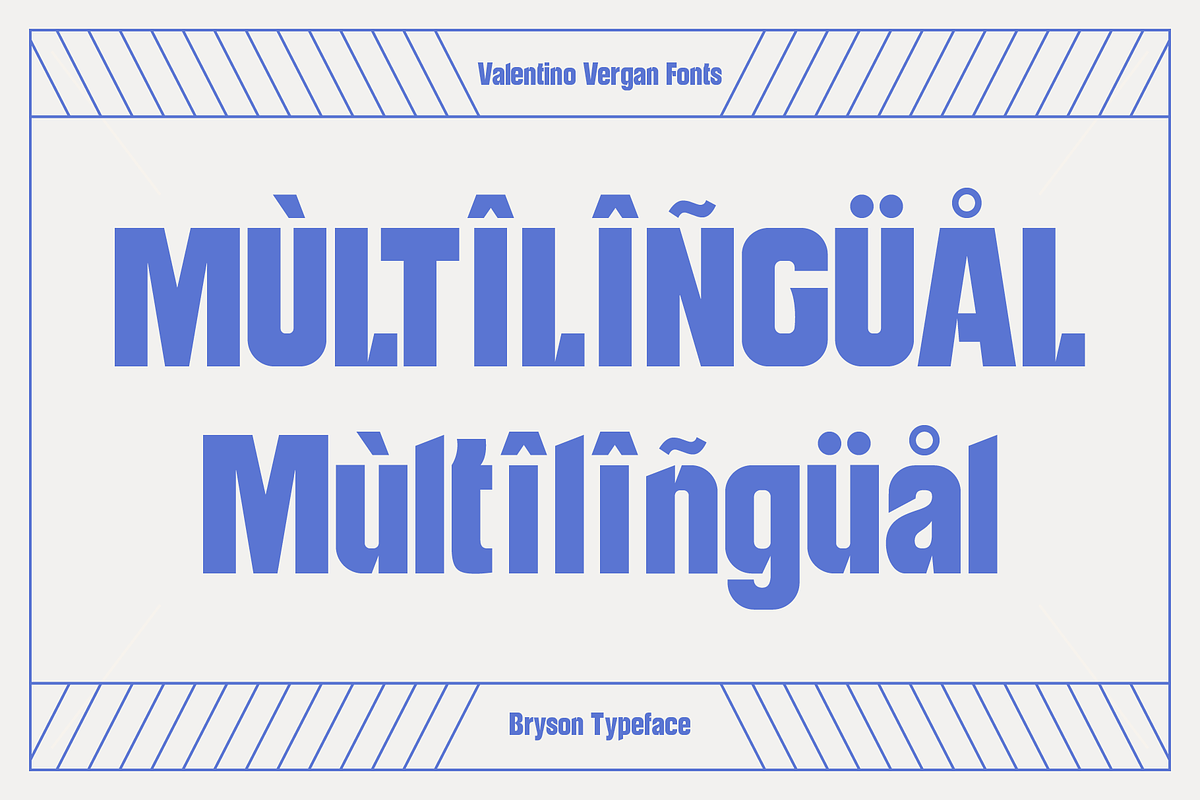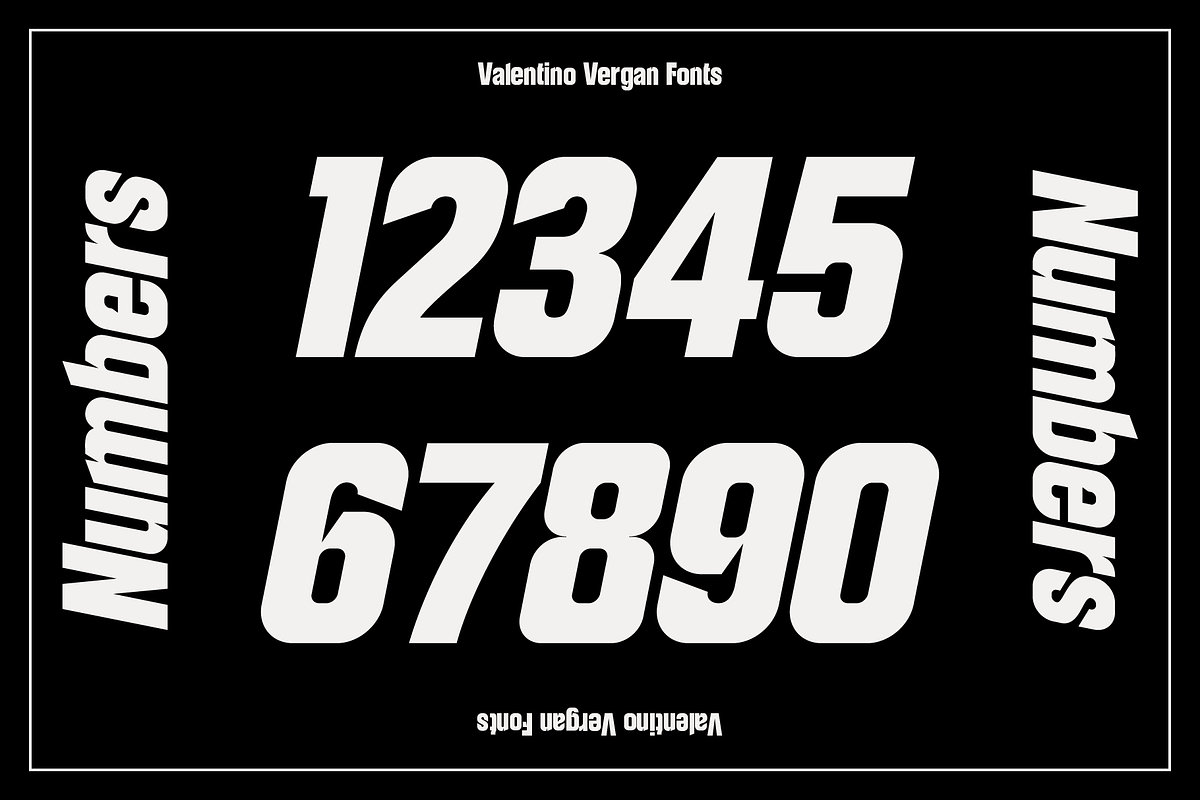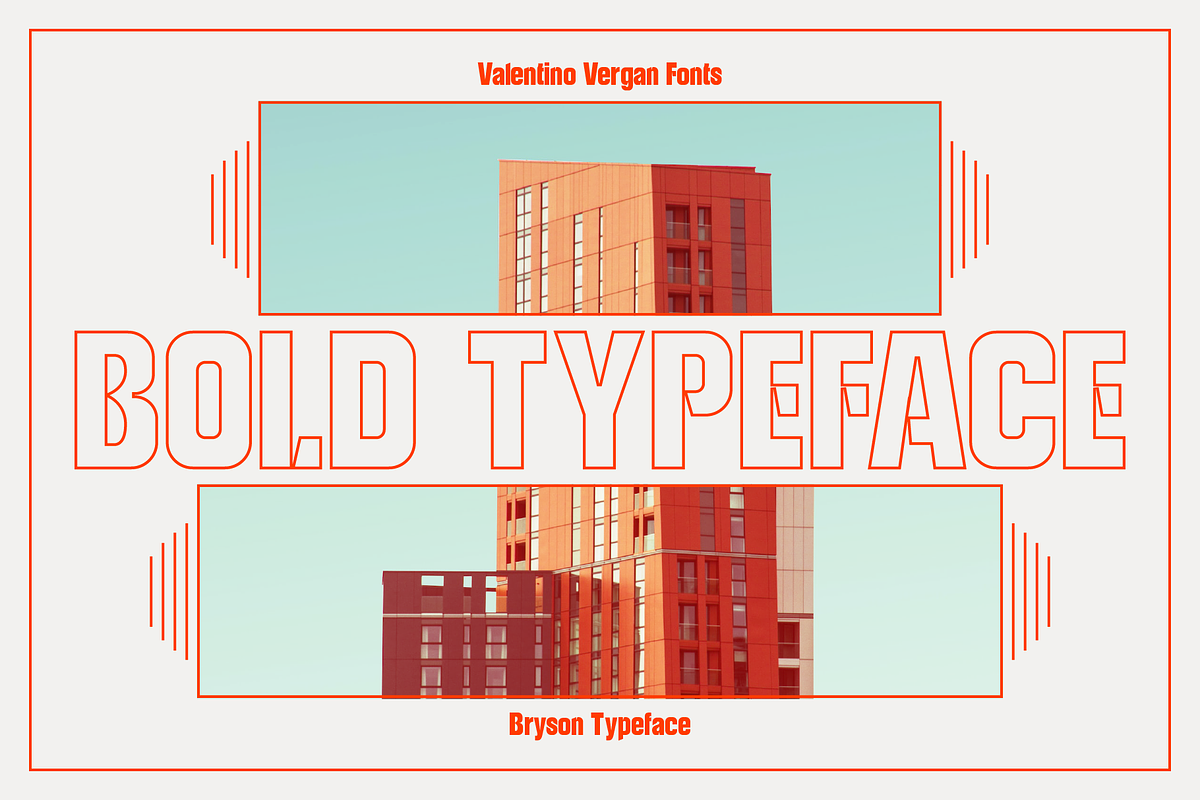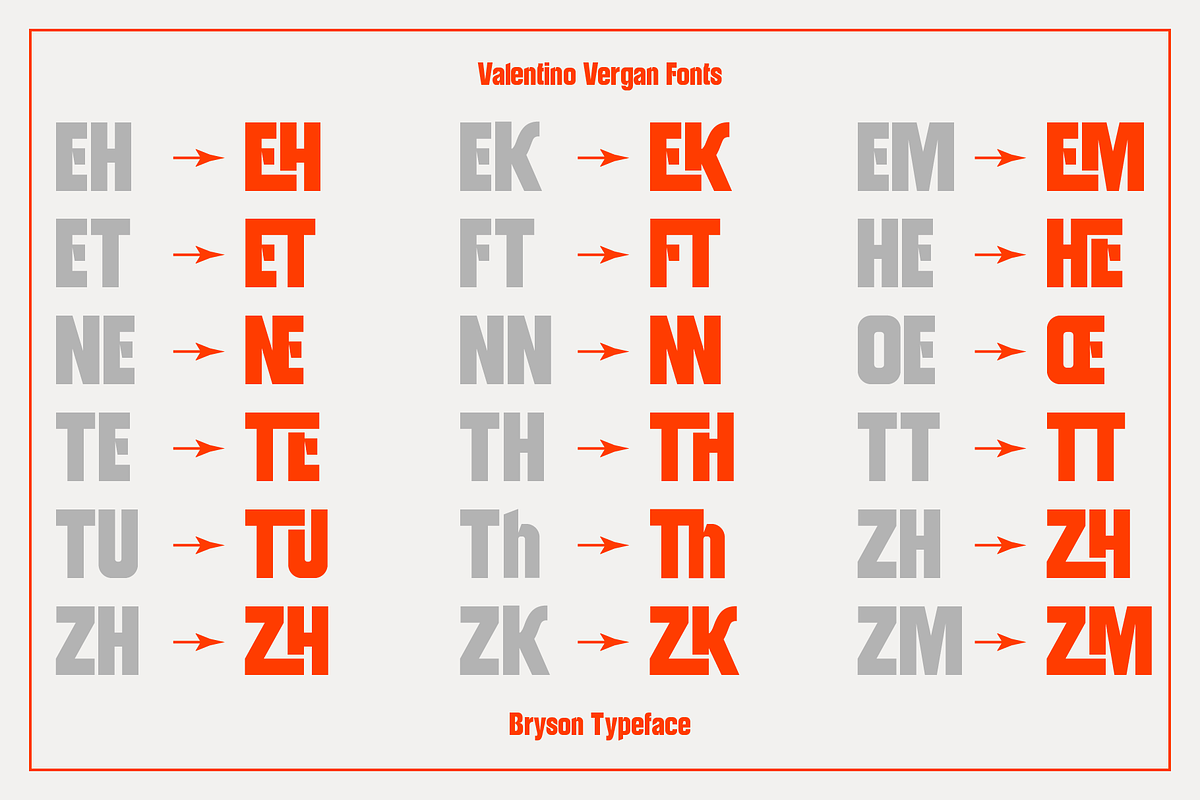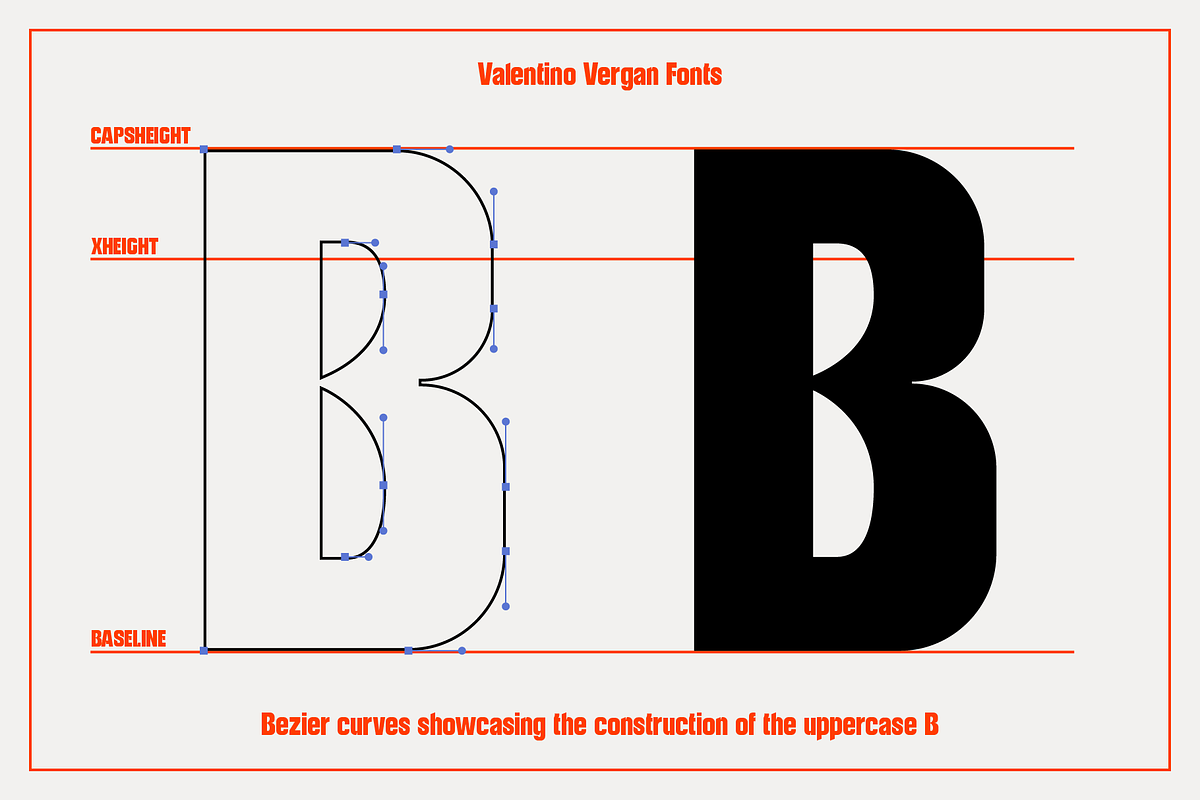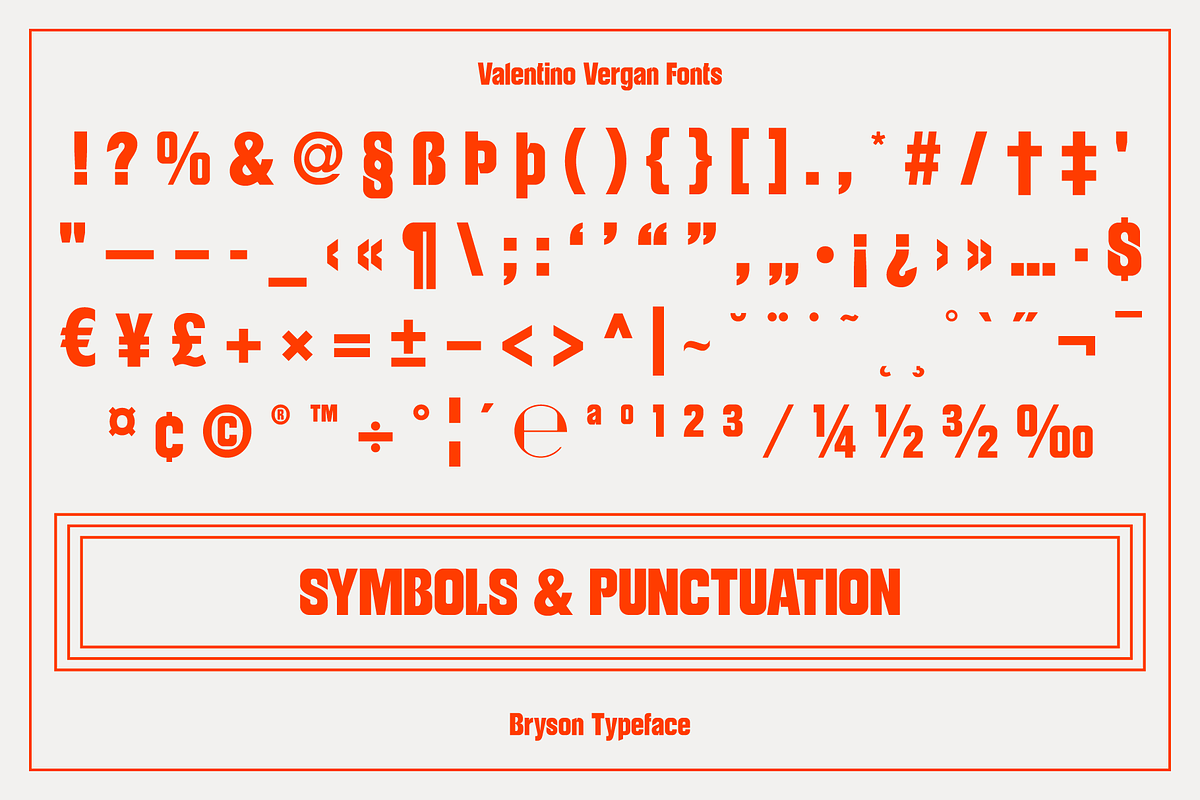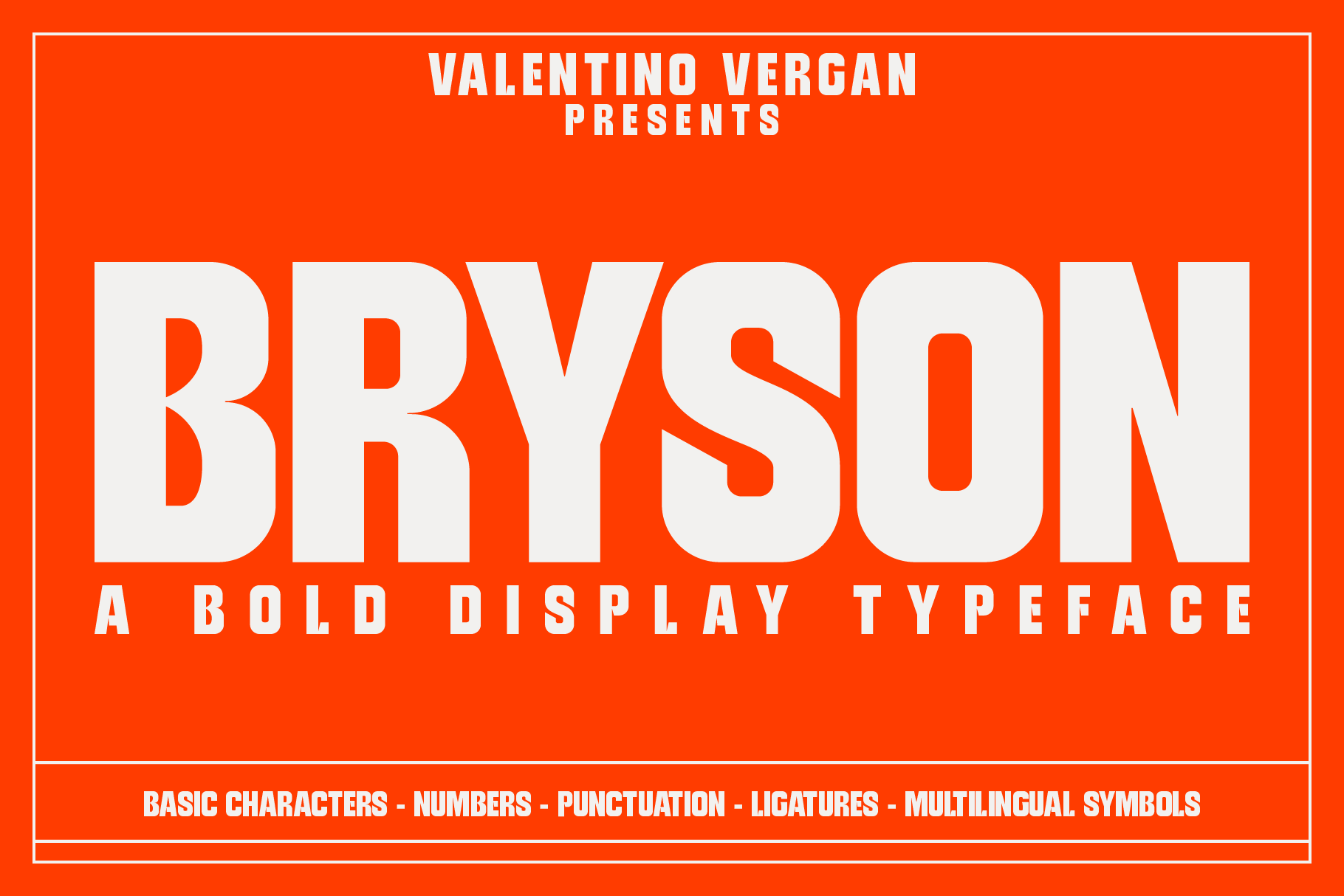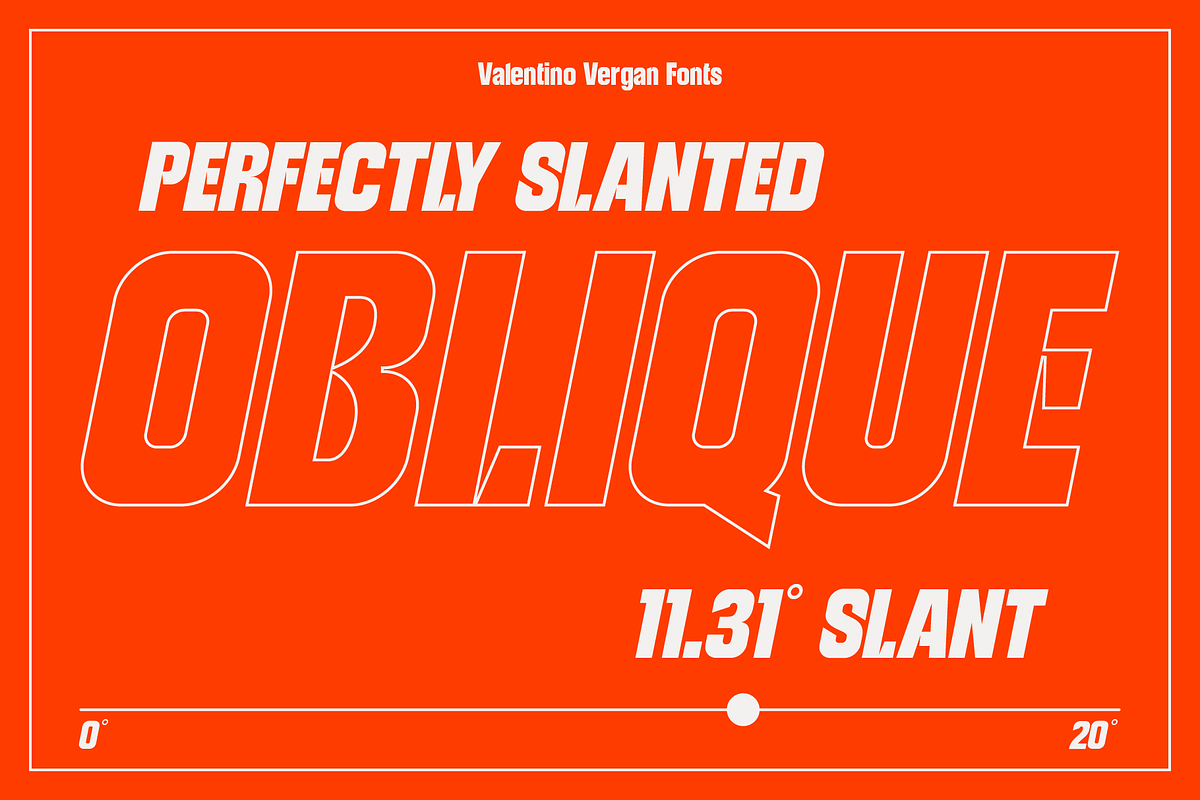
Bryson - Bold Typeface
Introducing Bryson, A bold sans serif ligature typeface. The Bryson typeface is characterized by simple but distinctive shapes. The typeface is very eye catching, its tight kerning and bold shapes makes it great for retro designs. You can use it for a wide range of projects, including print and web.
If you are looking for something bold and retro for you next project, Bryson is the typeface for you.